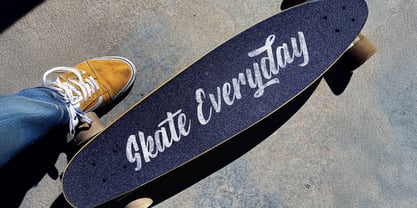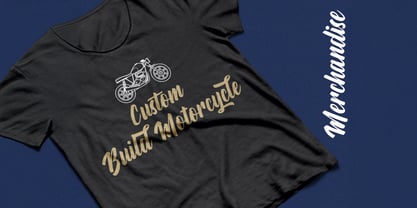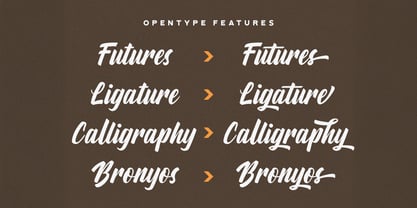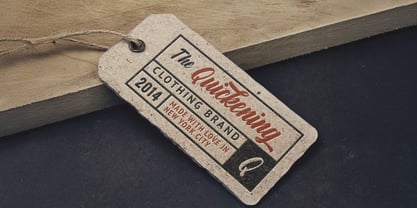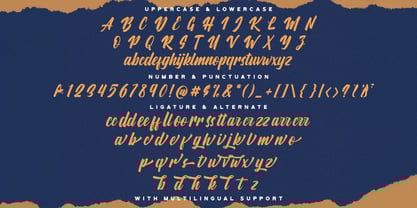
The Aylafs Font Family was designed by Virgiawan Listanto and published by Stringlabs Creative Studio. Aylafs contains 1 styles.
Aylafs is a bold script font with smooth curves, thick strokes, and a modern flair. Designed to stand out, it brings a powerful yet stylish presence to your designs perfect for making a statement with personality and charm. Whether you're working on branding, apparel, signage, or packaging, Aylafs delivers boldness with elegance and impact.
Aylafs